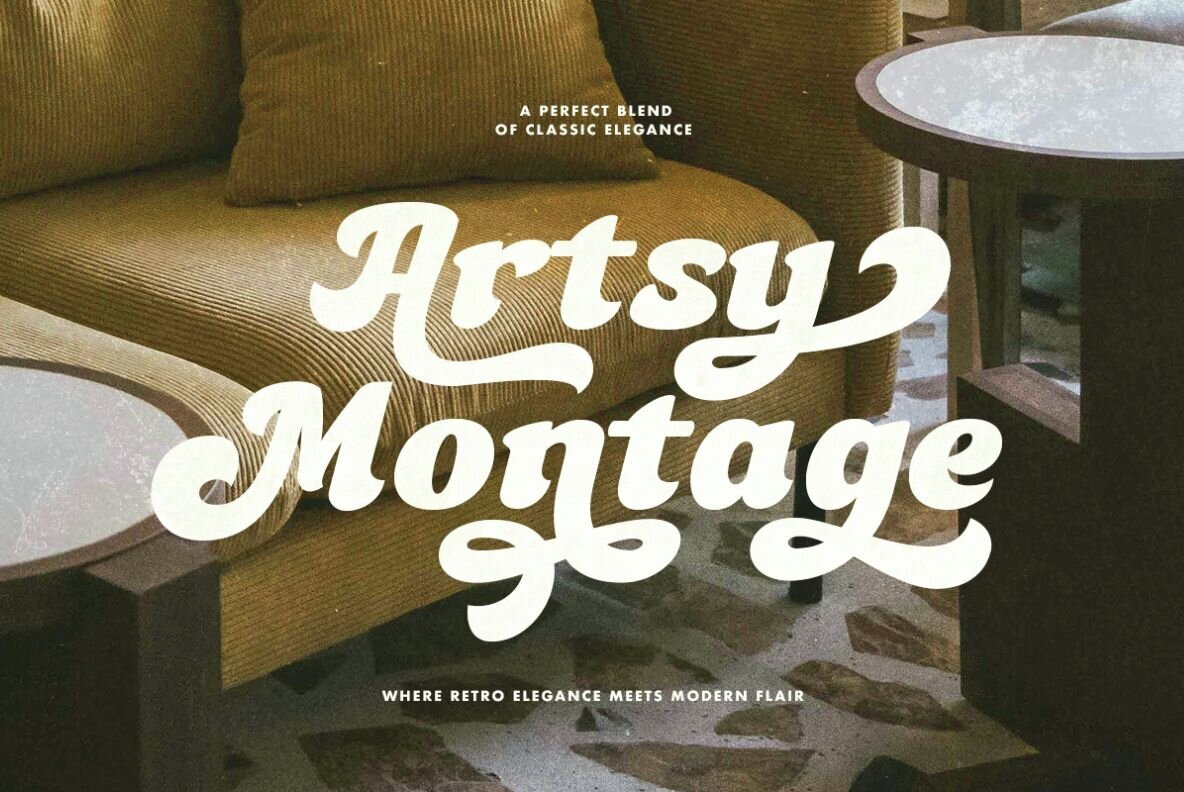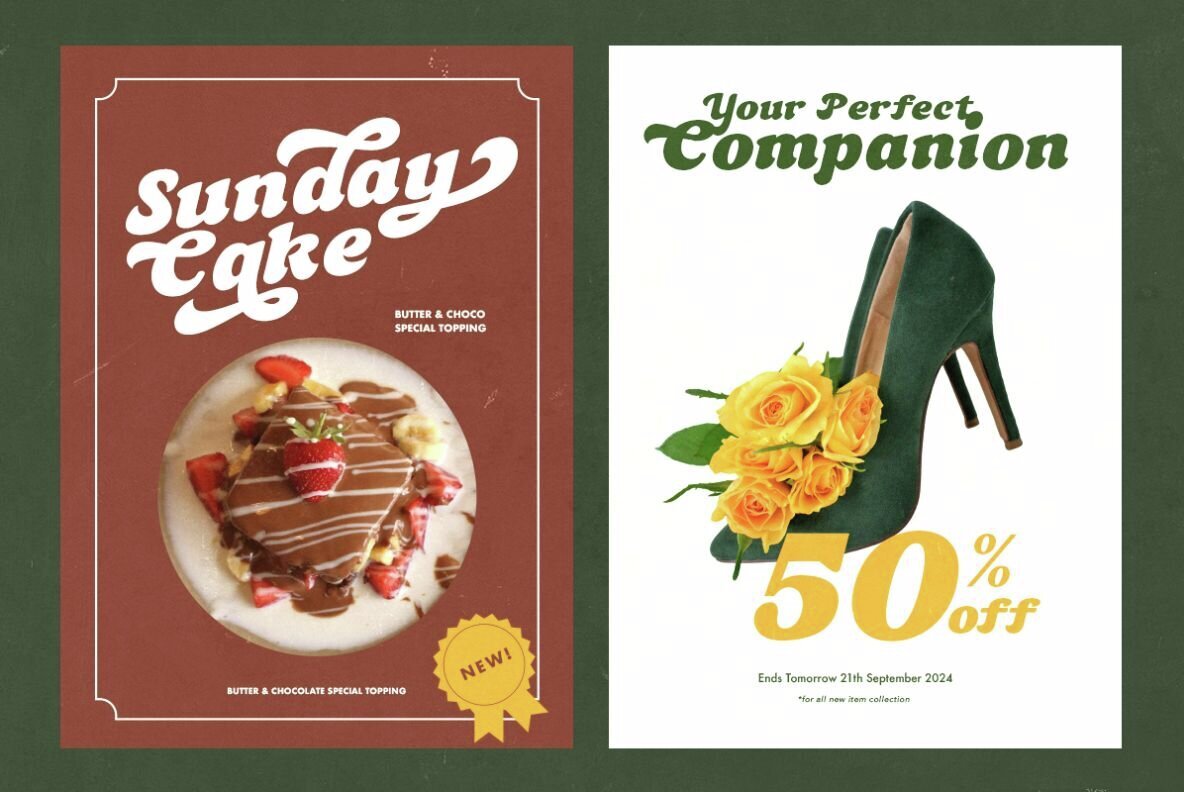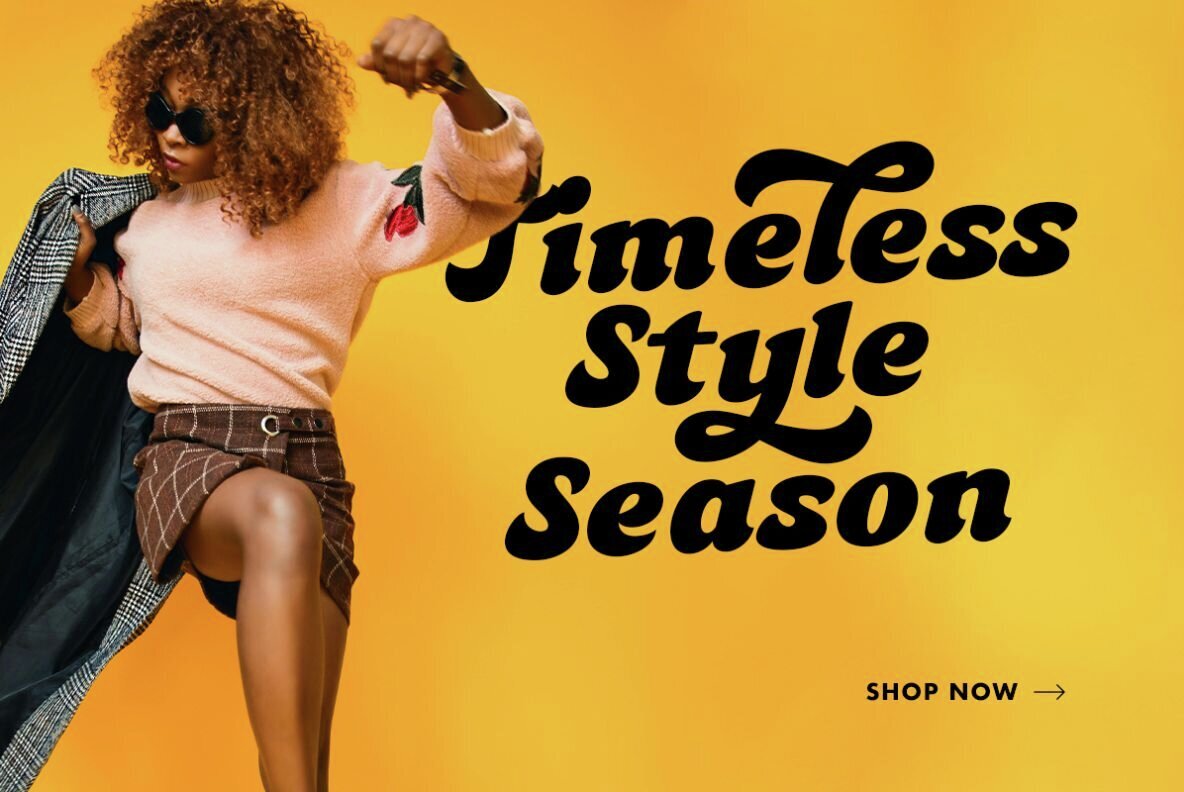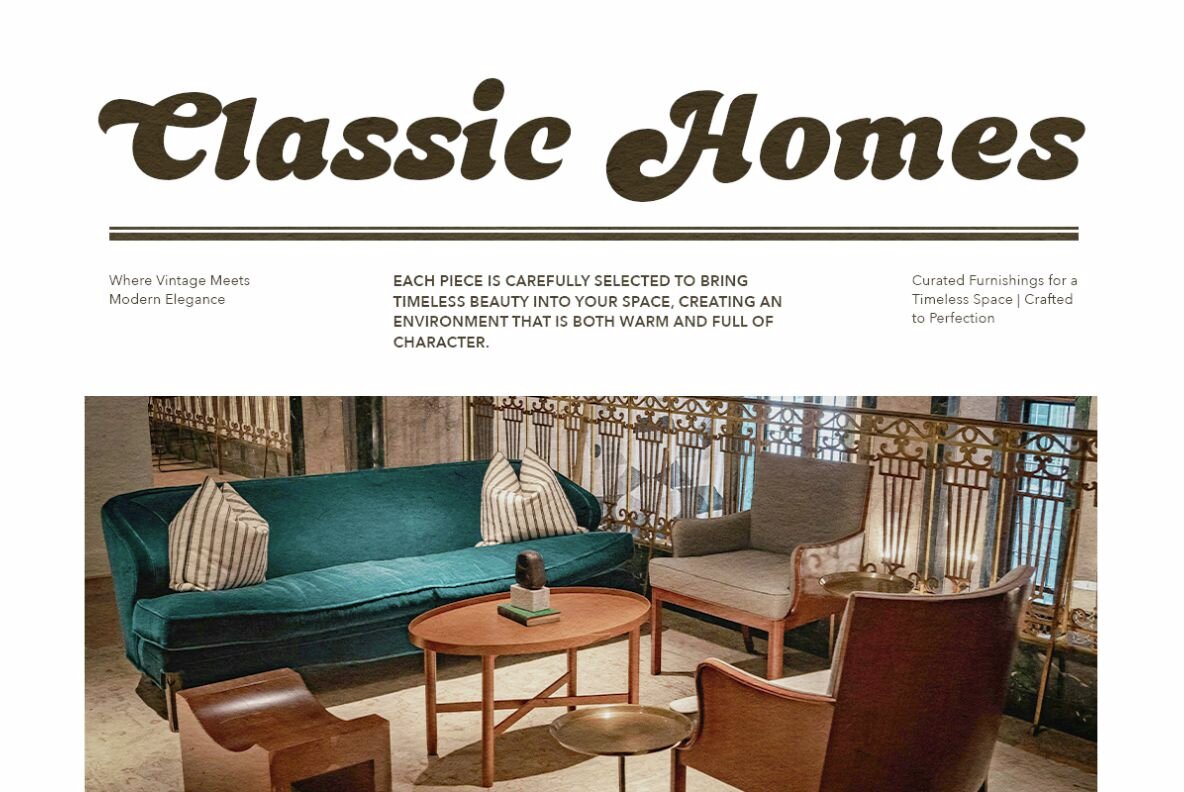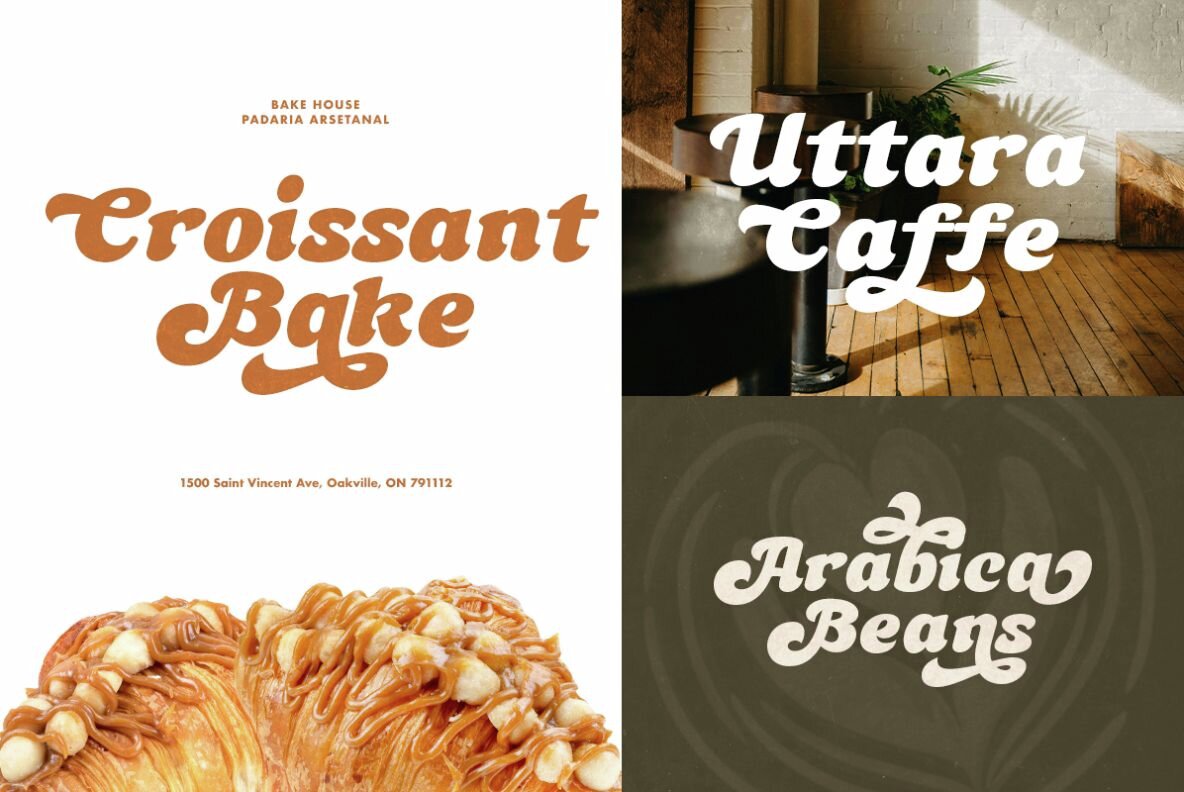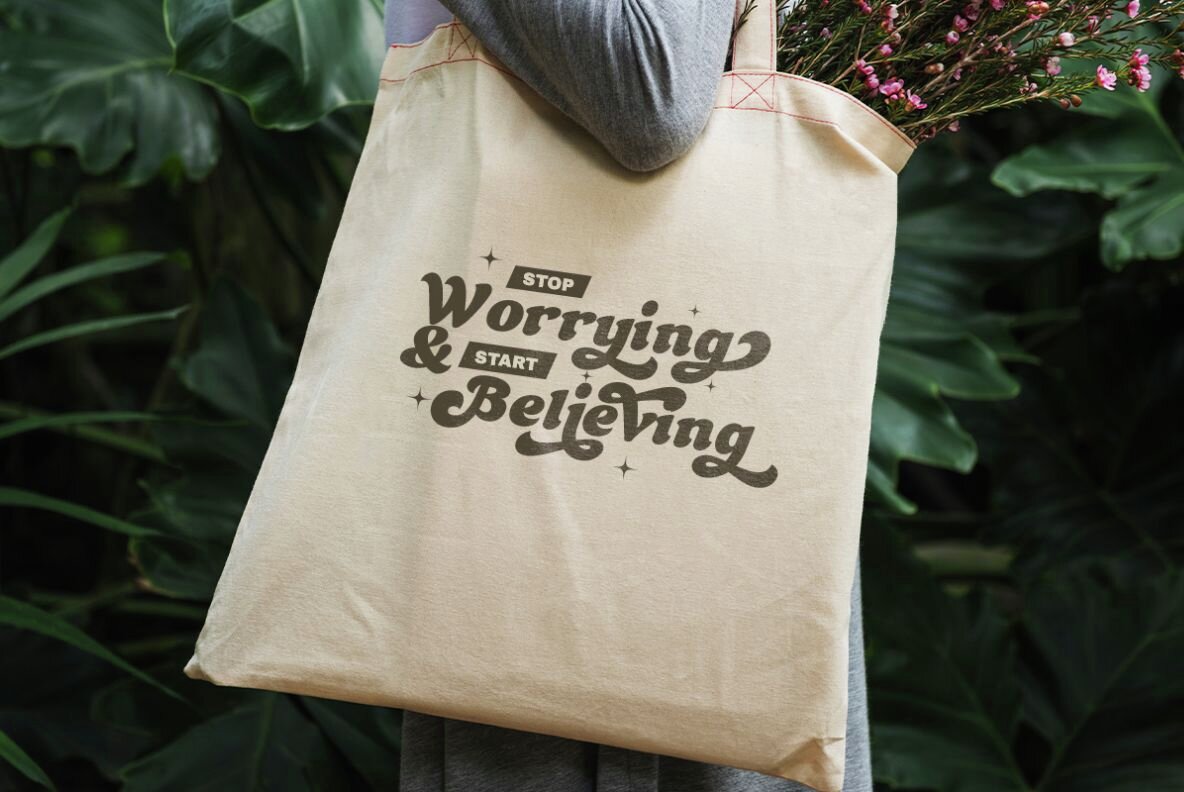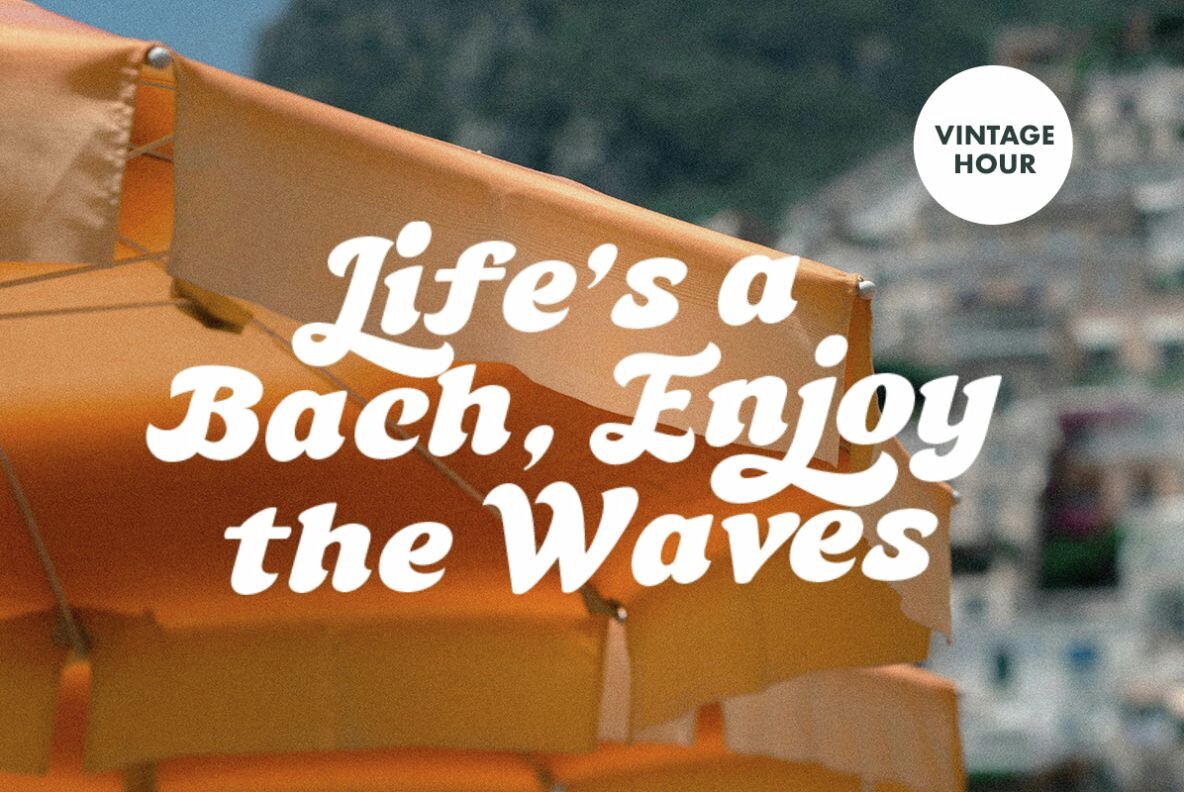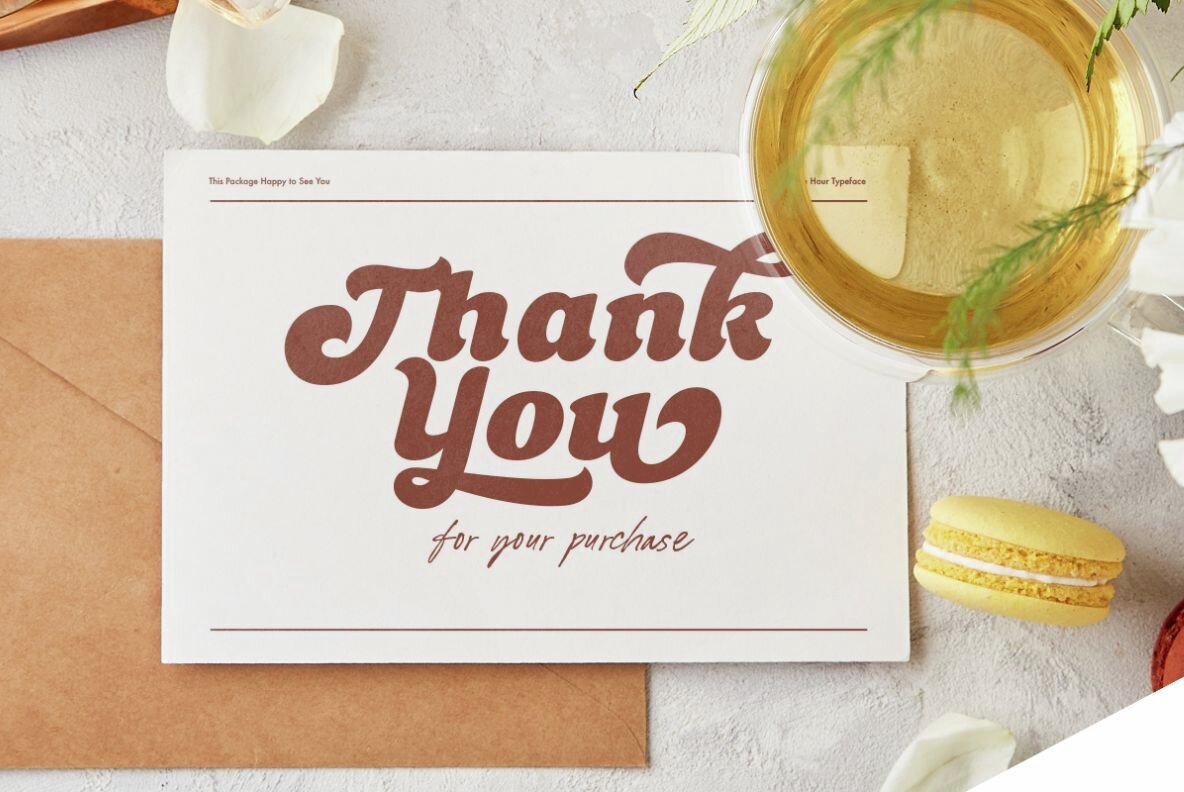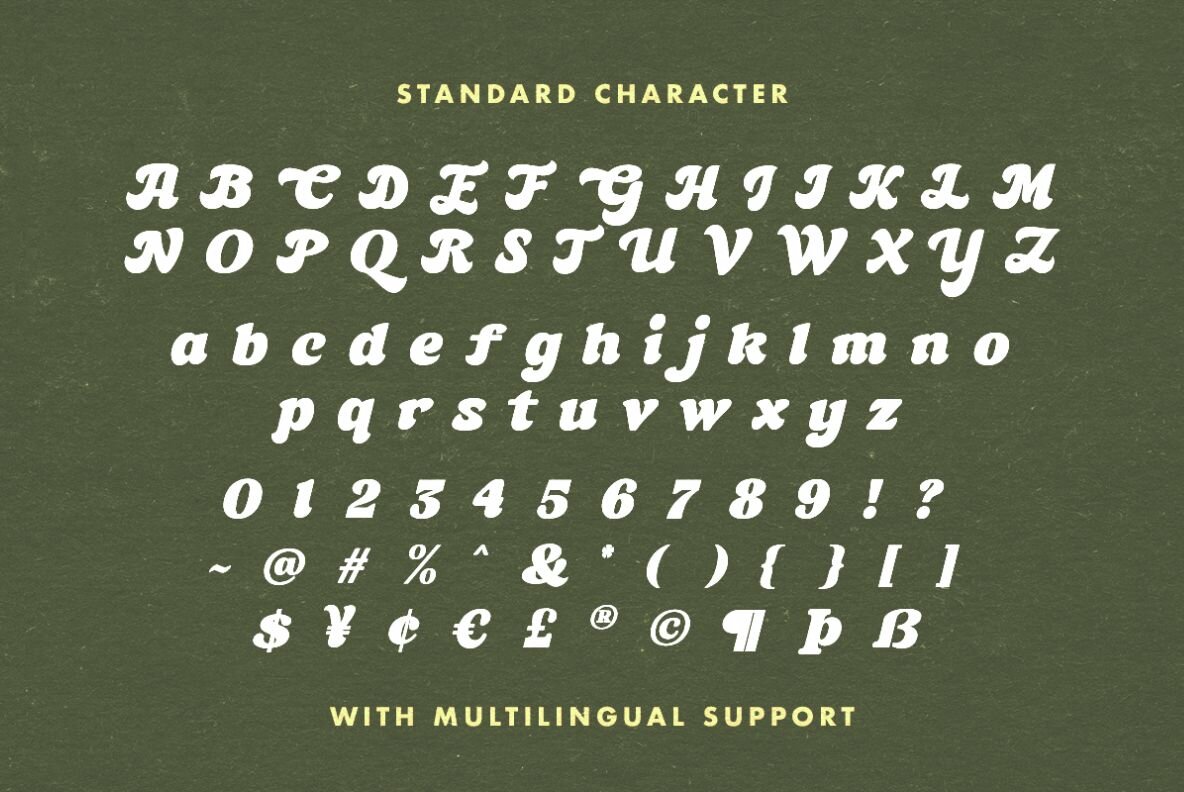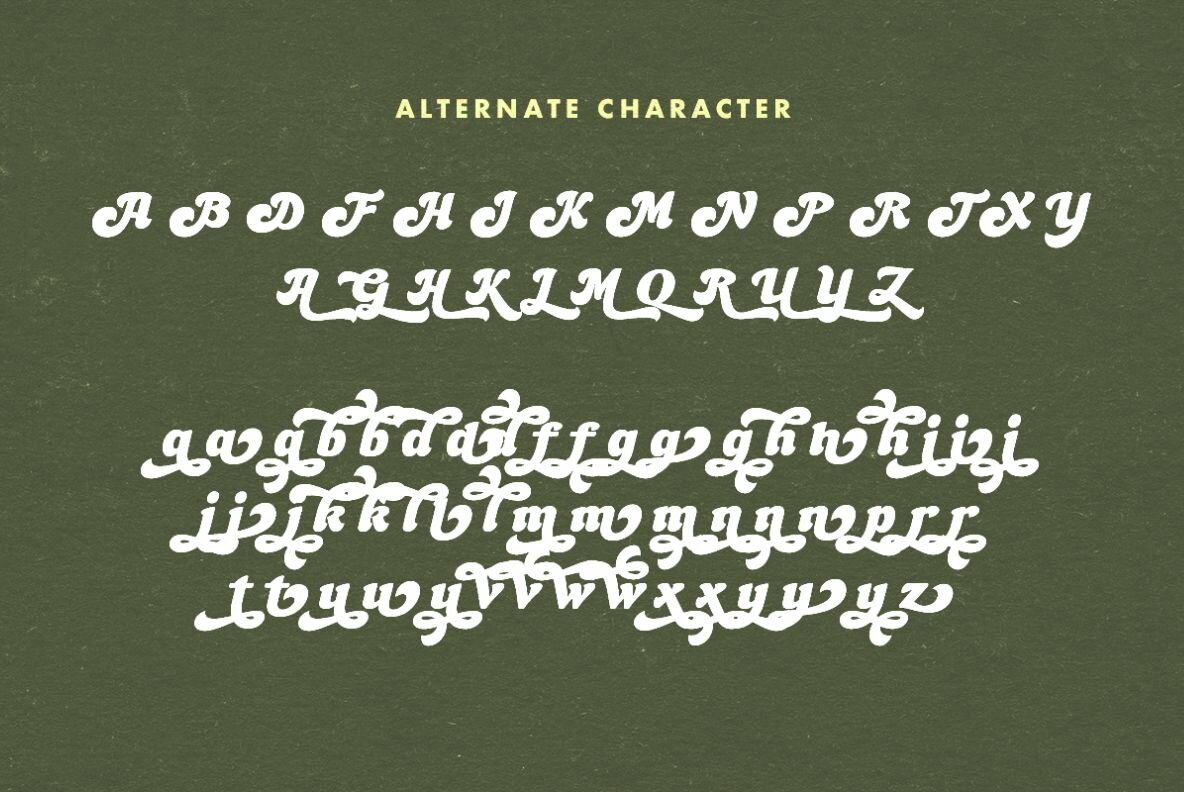
Artsy Montage Font
Artsy Montage is a bold, retro-inspired font perfect for projects requiring a vintage touch. Ideal for pieces like posters, book covers, signage, and quotes, this font brings an authentic old-school flair to your designs. The font is enriched with modern alternates, allowing for diverse visual expressions that truly stand out.
Artsy Montage is designed to support multiple languages, making it versatile for a wide array of global projects. Its unique aesthetic combines the charm of the past with the versatility needed for contemporary designs. Whether you're creating a nostalgic look or a modern twist on vintage-style projects, Artsy Montage provides the perfect blend of style and functionality.